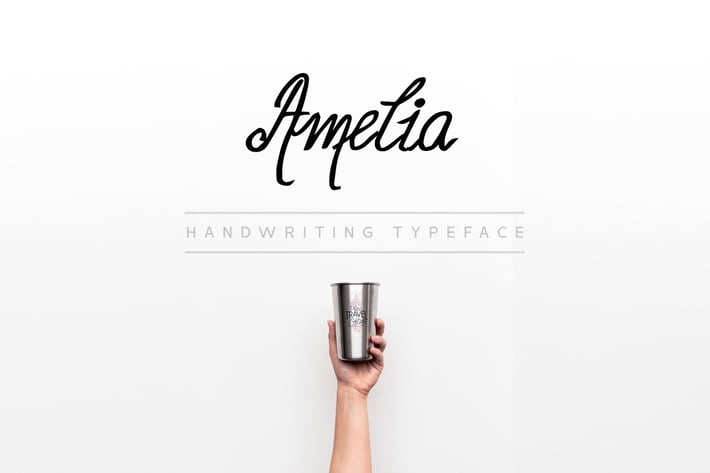
Amelia - Beautiful Handwriting / Calligraphy Font
Amelia, a beautiful handwriting / calligraphy font created by Lis with passion and love. It is perfect for branding, wedding invitation and greeting cards.
The font has simple layout with smooth texture that makes it perfect for all types of web and printing techniques. You can do embroidery, laser cut, gold foil etc. Pack includes Desktop Fonts (TTF & OTF) as well as Web Fonts.